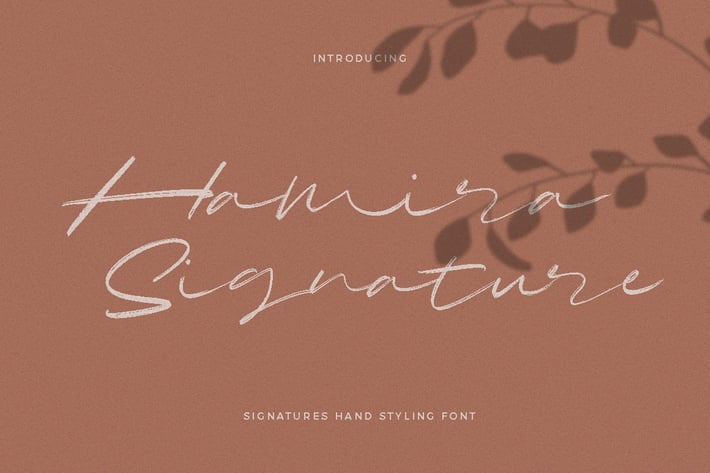
Hamira Signature Font Logotype Brush
Hamira Script is perfect for branding projects, logo, wedding designs, social media posts, advertisements, product packaging, product designs, label, photography, watermark, invitation, stationery and any projects that need handwriting taste.